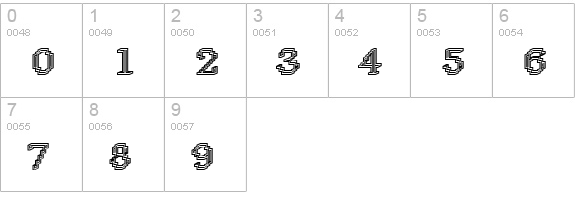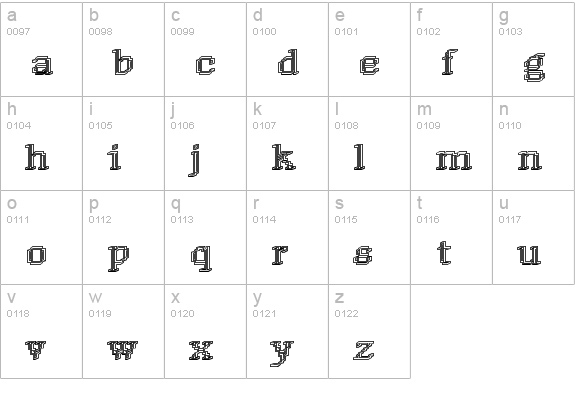
Rough14-Bold is a strong, high-contrast variant in the Rough14 typeface family \xE2\x80\x94 well suited to headlines, attention-grabbing titles, and strong calls-to-action.
Rough14-Bold font is a striking display typeface that exudes a rugged and bold aesthetic perfect for making a statement. Its rough edges and strong lines give it a unique and eye-catching appearance that is sure to grab attention. This font is versatile and can be used for a variety of design projects, from posters to branding materials. The best part? Rough14-Bold font is completely free to download at FontsMarket.com, making it easy to add a touch of boldness to your designs without breaking the bank. Whether you're looking to add a bold title to your project or create a striking logo, Rough14-Bold font is the perfect choice for adding a touch of personality and style. Download it today and unleash your creativity with this stunning display font.